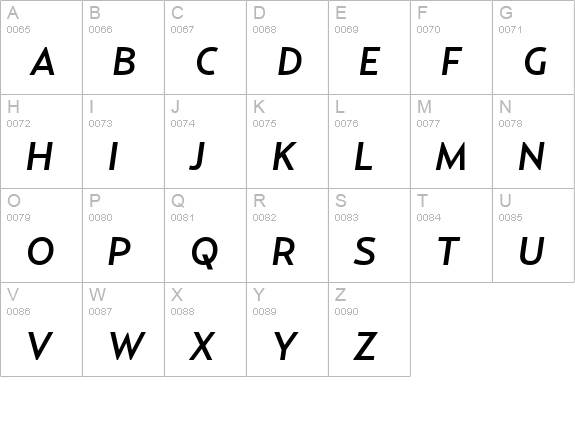
Relay-MediumItalic font is a charming and elegant typeface that adds a touch of sophistication to any design project. Its sleek and slanted letterforms exude a sense of modernity and grace, making it a perfect choice for branding, advertising, and editorial purposes. With its medium weight and italic style, Relay-MediumItalic strikes the perfect balance between professionalism and creativity. Whether you are designing a logo, creating a magazine layout, or crafting a website, this font will effortlessly enhance the overall aesthetic of your work. One of the best features of Relay-MediumItalic is that it is freely available to download at FontsMarket.com. This means that you can easily access and utilize this beautiful font without any hassle or cost. With its versatility and accessibility, Relay-MediumItalic empowers designers and creatives of all levels to bring their visions to life. The clean and legible nature of Relay-MediumItalic ensures that your message is conveyed with clarity and impact. The subtle curves and curves of this font provide a sense of elegance and sophistication, elevating your design to a whole new level. Whether you are designing for print or digital platforms, Relay-MediumItalic is a reliable choice that will never fail to impress. Its timeless appeal and versatility make it suitable for a wide range of projects, from corporate branding to wedding invitations. Download Relay-MediumItalic font today from FontsMarket.com and unlock the potential to create stunning and visually captivating designs. With its free availability and exceptional design qualities, Relay-MediumItalic is a must-have addition to any designer's toolkit.